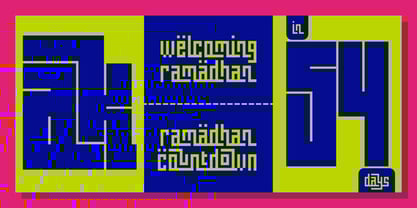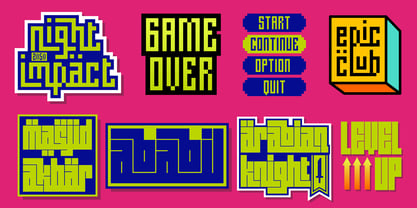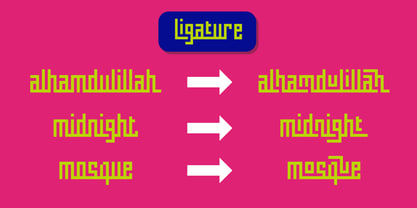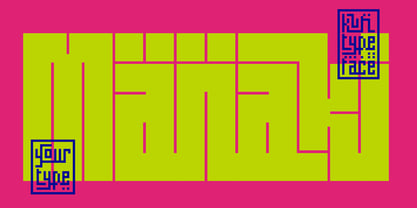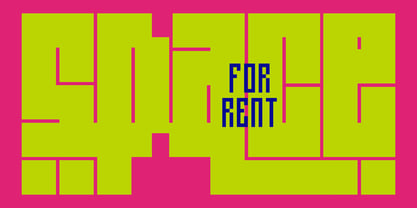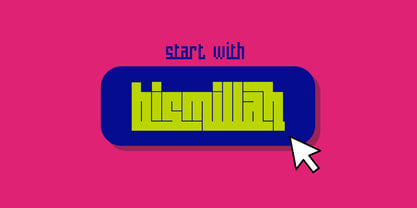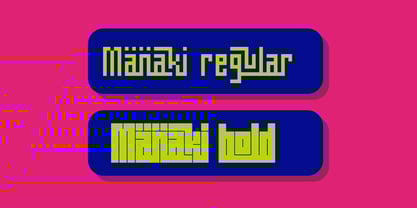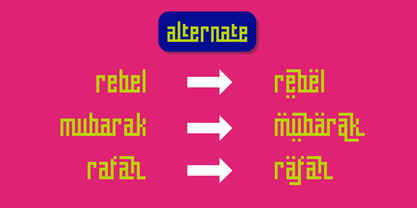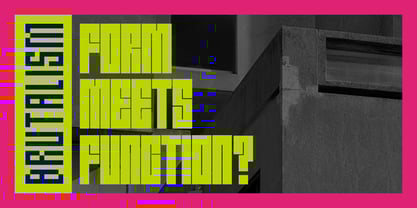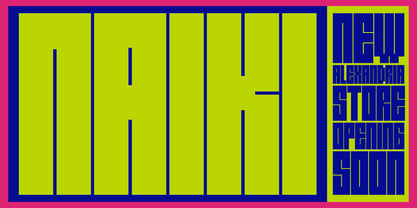
Manaki
by Your type
The Manaki Font Family was designed by Dicky Safaat Fuadi and published by Your type. Manaki contains 2 styles and family package options.
Introducing Manaki: The Perfect Blend of Kufi Art and Pixel Style
Manaki is an alphabet font inspired by the elegant Kufi Arabic style, available in two versatile weights: Regular and Bold.
What sets Manaki apart is its ligature interlock feature, which creates a stunning calligraphic look with seamless connections. To add even more charm, Manaki incorporates a unique pixel art style, making it a modern twist on tradition.
This font is perfect for a wide range of creative projects, including:
- Islamic holiday greetings like Ramadan, Eid al-Fitr, and Eid al-Adha
- Logos, posters, and game branding
- Packaging designs and more